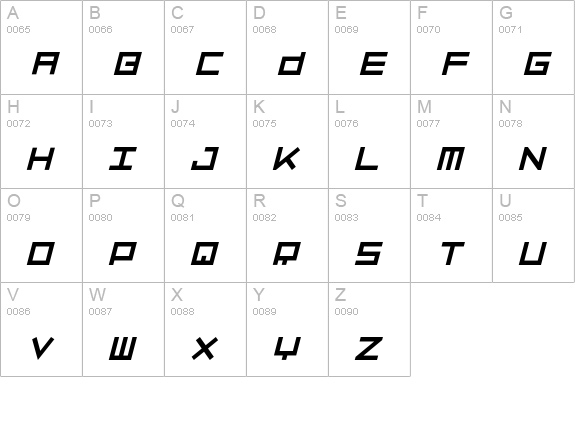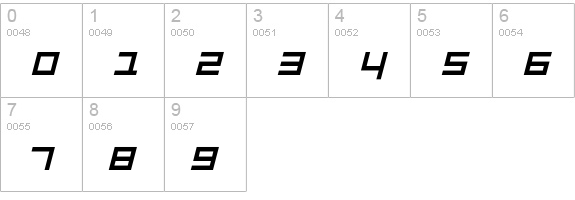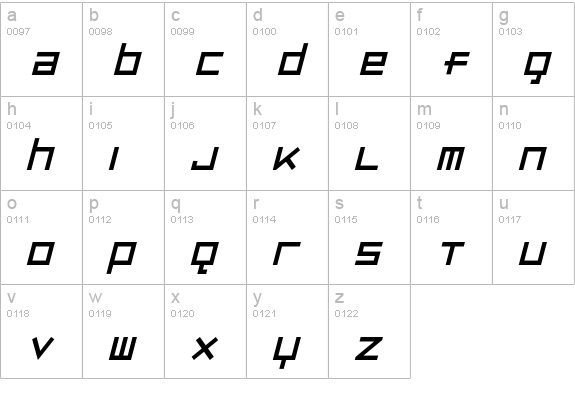
LuggageRegularObl Font Details
LuggageRegularObl font is a versatile and modern typeface that perfectly balances style and readability. Its sleek lines and unique oblique design make it stand out from the crowd, making it a perfect choice for a variety of design projects. Whether you're creating a sleek corporate presentation or a trendy poster, this font is sure to make a statement. What's even better is that LuggageRegularObl font is completely free to download at FontsMarket.com. With just a few clicks, you can enhance your projects with this eye-catching font without breaking the bank. Don't miss out on the opportunity to add this stylish typeface to your font collection and take your designs to the next level. Download LuggageRegularObl font today and let your creativity shine!